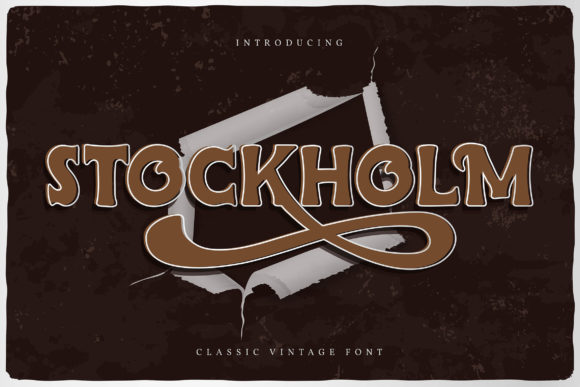
Make a statement with your designs using Stockholm Font, a bold and captivating display font that oozes vintage charm and personality. This unique font, hailing from the creative mind of Vunira, boasts of thick, elegant letters that exude a sense of nostalgia and timeless appeal. With Stockholm Font, your designs will transcend the ordinary and leave a lasting impression on your audience.
Embrace the versatility of Stockholm Font and unlock a world of creative possibilities. Elevate your letterheads, titles, and stationery with its distinctive character, adding a touch of sophistication and charm to your written communications. This font is your perfect partner for crafting eye-catching logos and branding elements that stand out from the crowd, leaving a lasting impression on your customers and leaving them wanting more.
Transport yourself to the world of Japanese aesthetics with Stockholm Font, the ideal choice for creating authentic and captivating designs that resonate with the rich cultural heritage of Japan. Its bold strokes and vintage charm evoke a sense of tradition and elegance, making it the perfect font for designing posters, flyers, and marketing materials that celebrate Japanese culture and heritage.
With Stockholm Font, you have found a font that ignites creativity and sparks imagination. Its bold and unique presence demands attention, making it a perfect choice for designing social media posts, website headers, and marketing campaigns that aim to capture the attention of your audience and leave them spellbound. Unleash your creativity and craft designs that resonate with your audience, connecting with them on a deeper level.